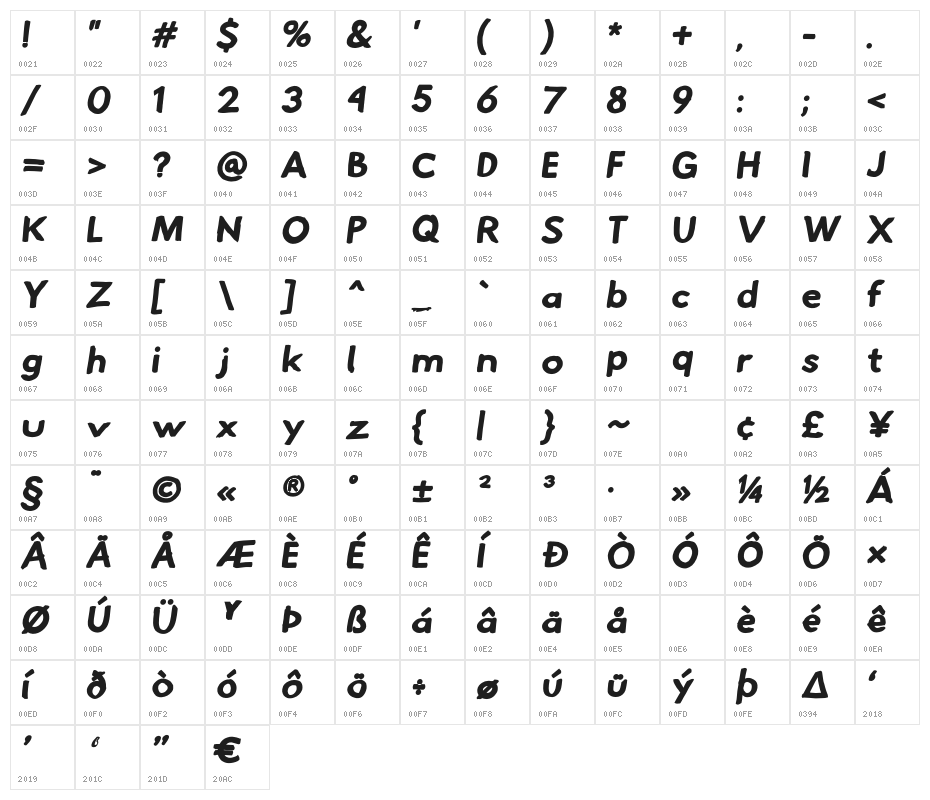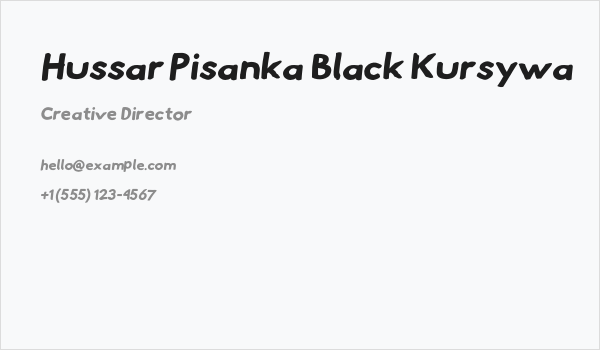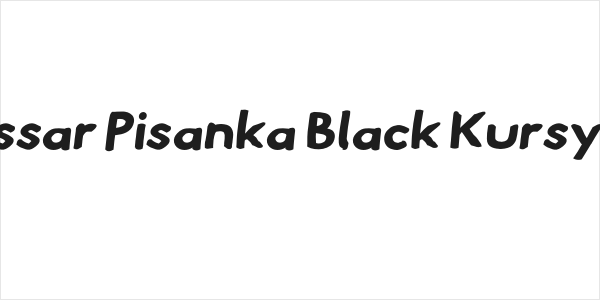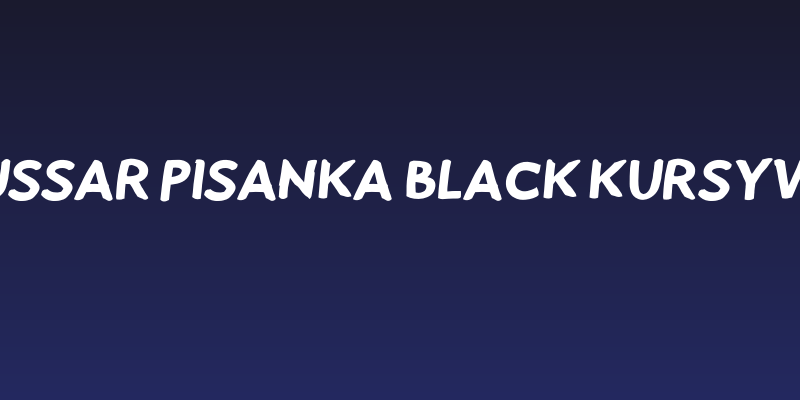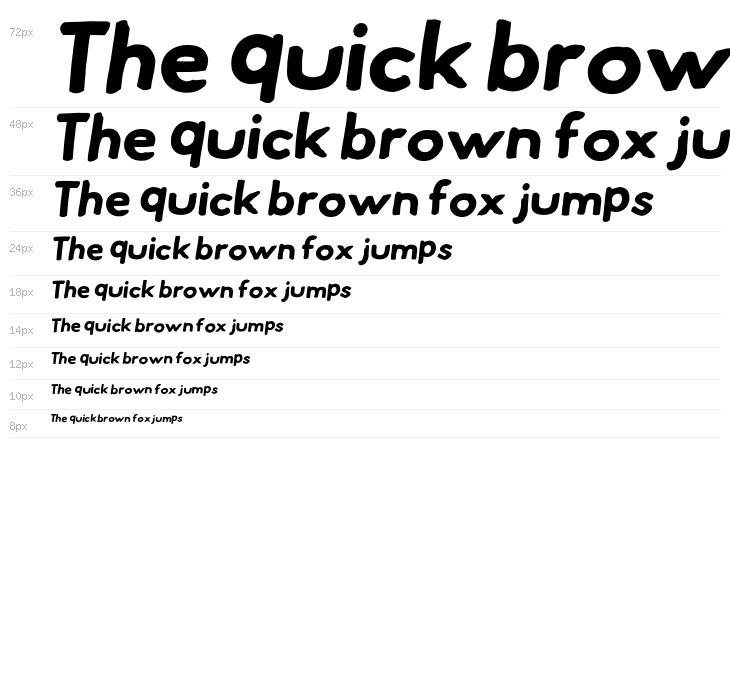
Hussar Pisanka Black Kursywa Font
Hussar Pisanka Black Kursywa Description
This font features a bold and dynamic style with a playful, handwritten quality. The characters are slightly slanted, giving it a cursive feel while maintaining clear legibility. The strokes are thick and rounded, providing a sense of warmth and approachability. The uppercase letters are consistent in height, while the lowercase letters have a slight variation in size, adding to the casual and informal appearance. The numerals are bold and easy to read, matching the overall style of the letters. Special characters are well-integrated, maintaining the font's cohesive look.
| Overall Style | Playful, Casual |
| Proposed Projects | Ideal for children's books, playful branding, casual invitations, and creative posters. |